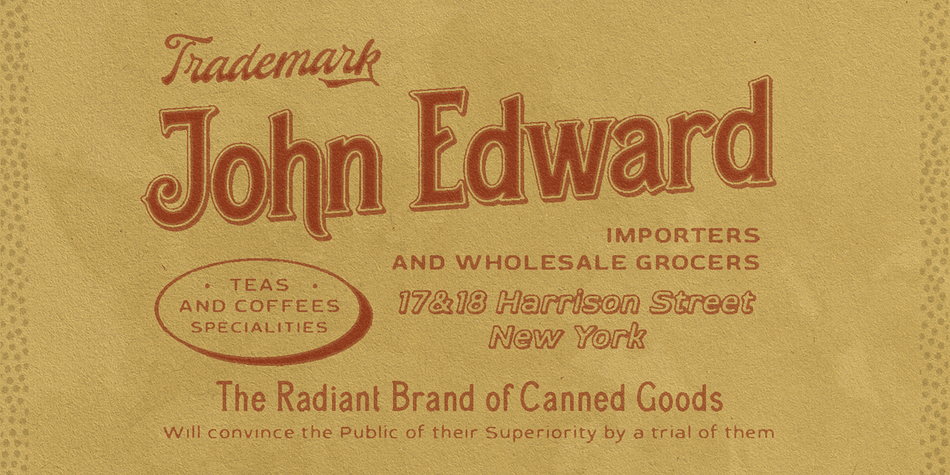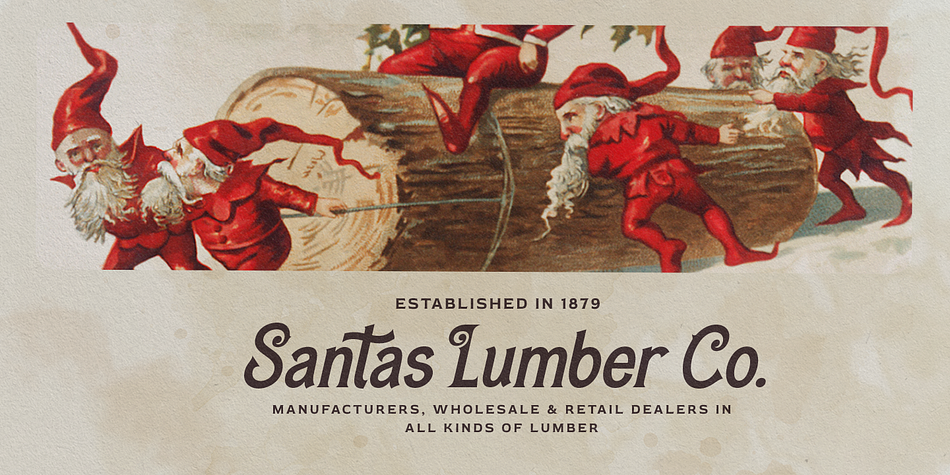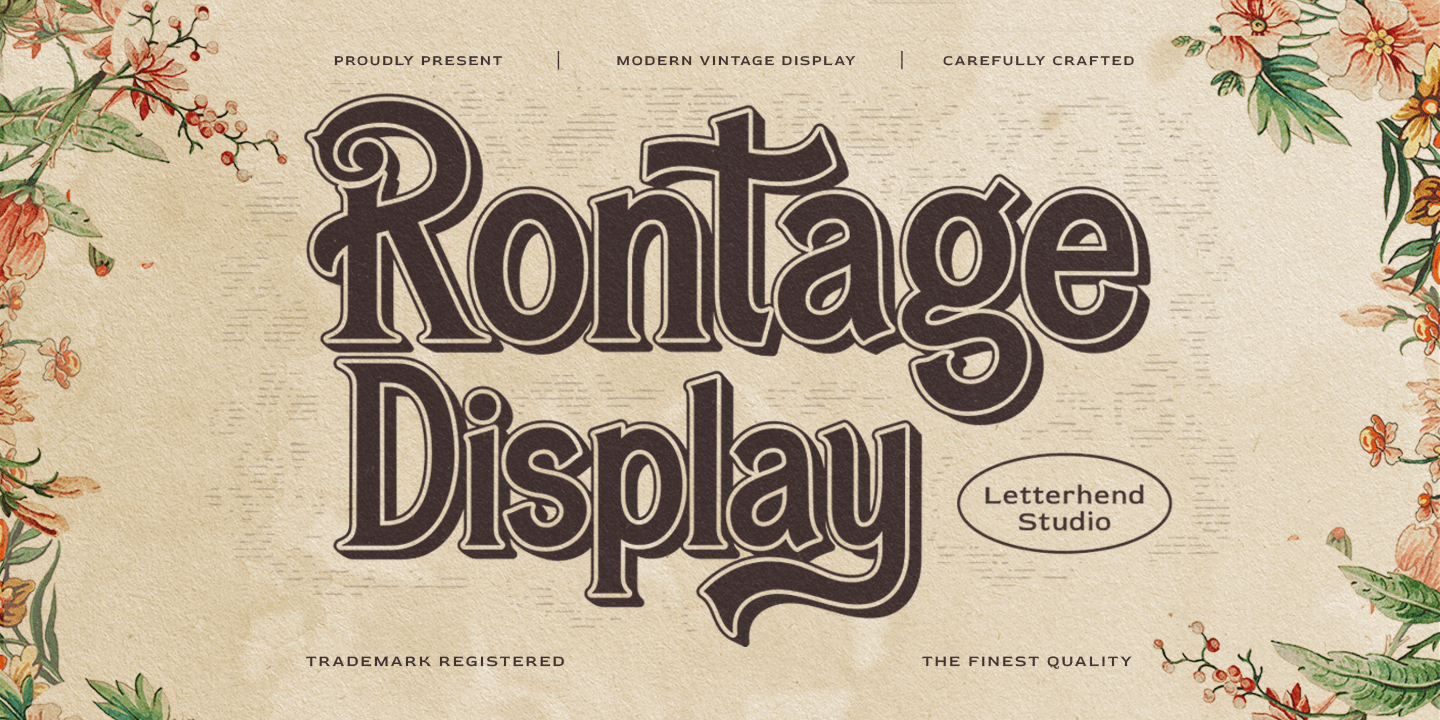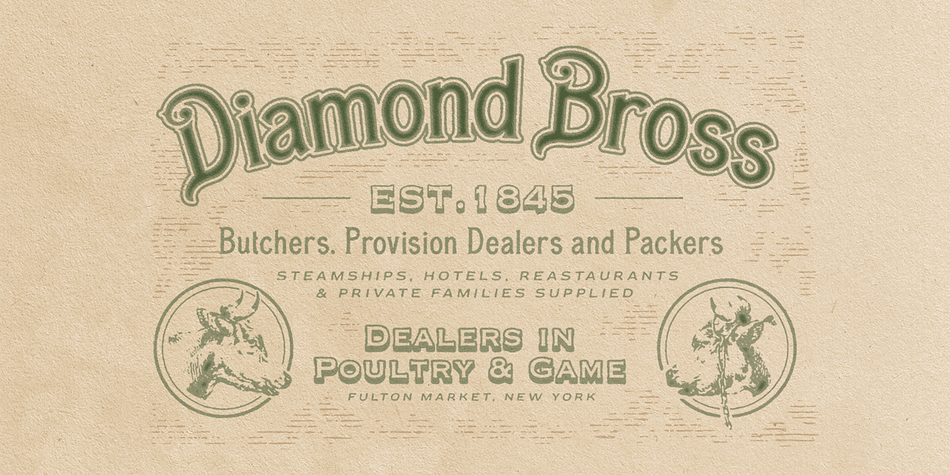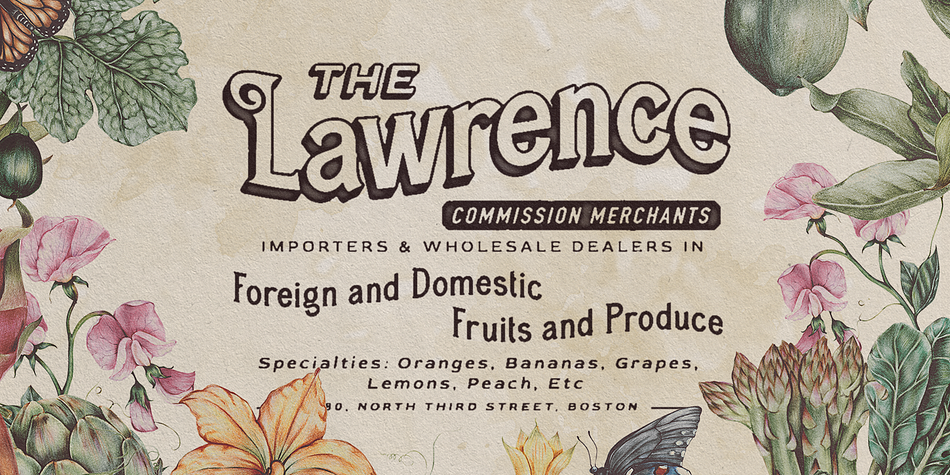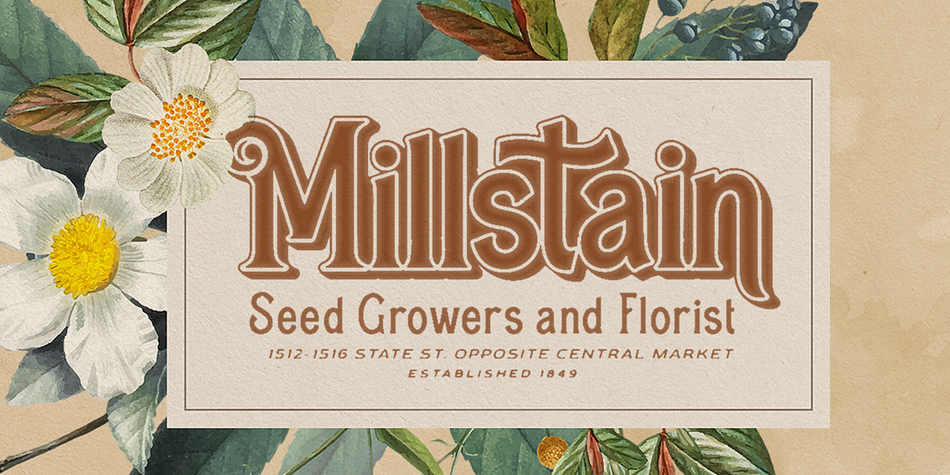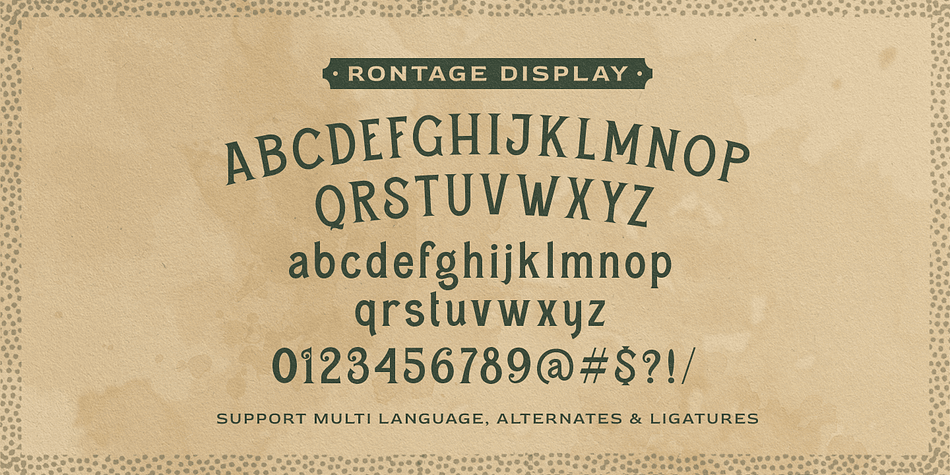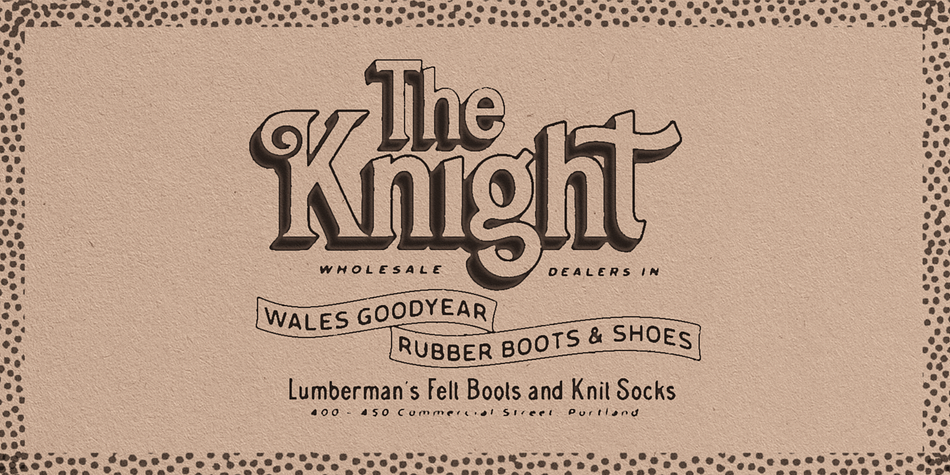
Designed by Hendry Juanda, Rontage Display is a display serif font family published by Letterhend Studio.
Rontage Display is a serif display typeface with a touch of vintage look and feel. The stroke with swirls really make it looks nostalgic. This type of font perfectly made to be applied especially in logo, headline, signage and the other various formal forms such as invitations, labels, logos, magazines, books, greeting / wedding cards, packaging, fashion, make up, stationery, novels, labels or any type of advertising purpose.
- alternates / swashes and ligatures